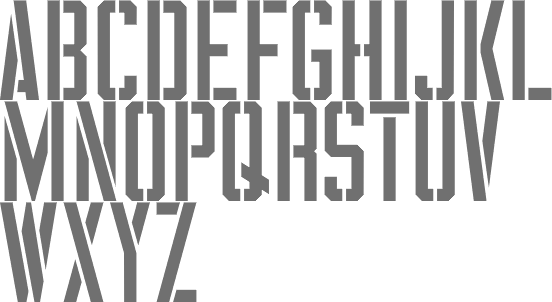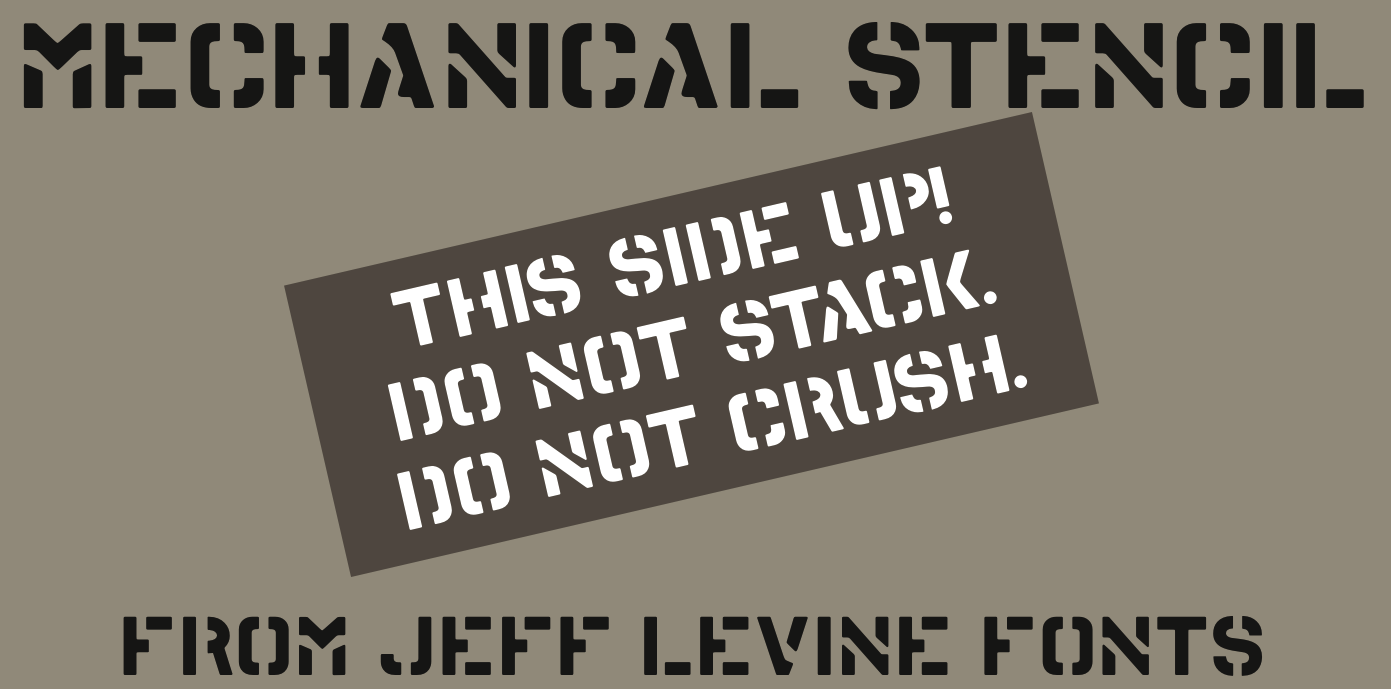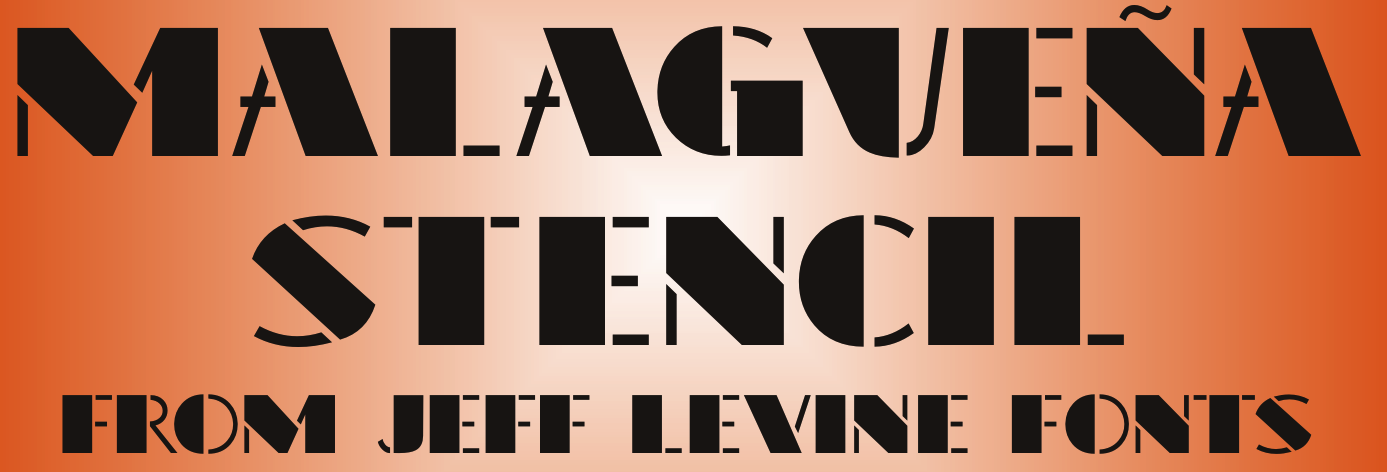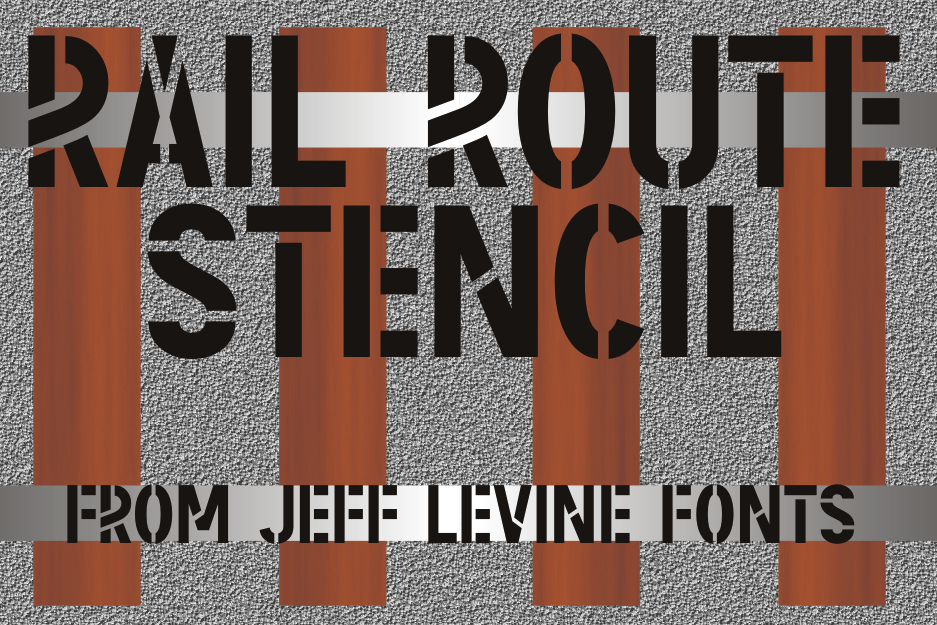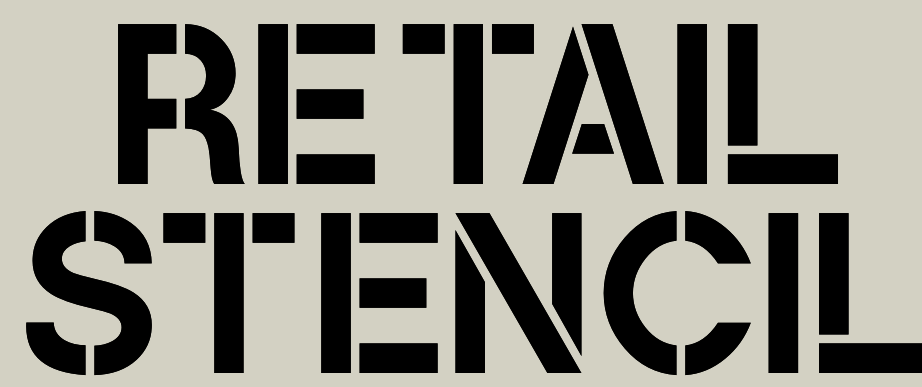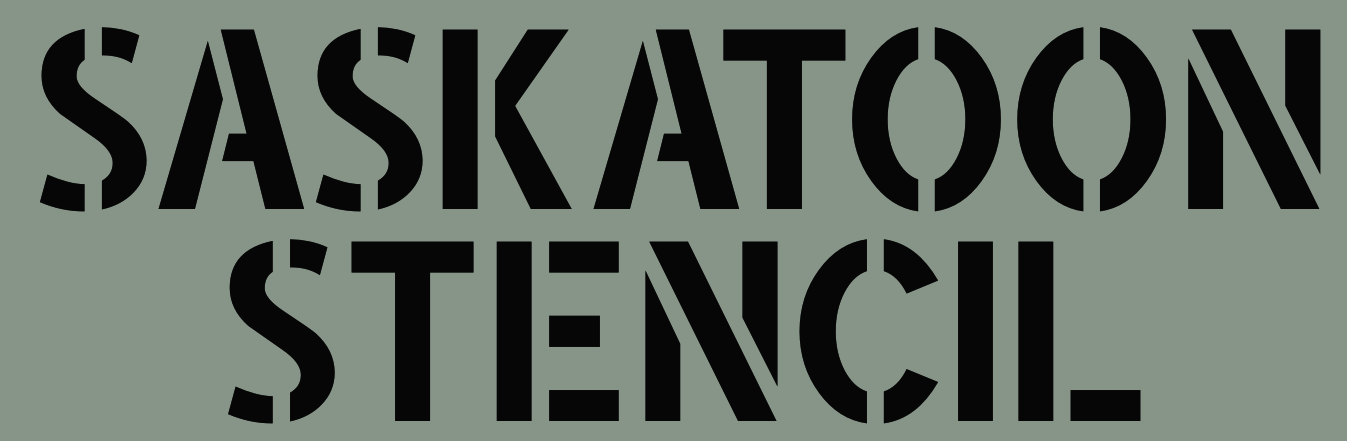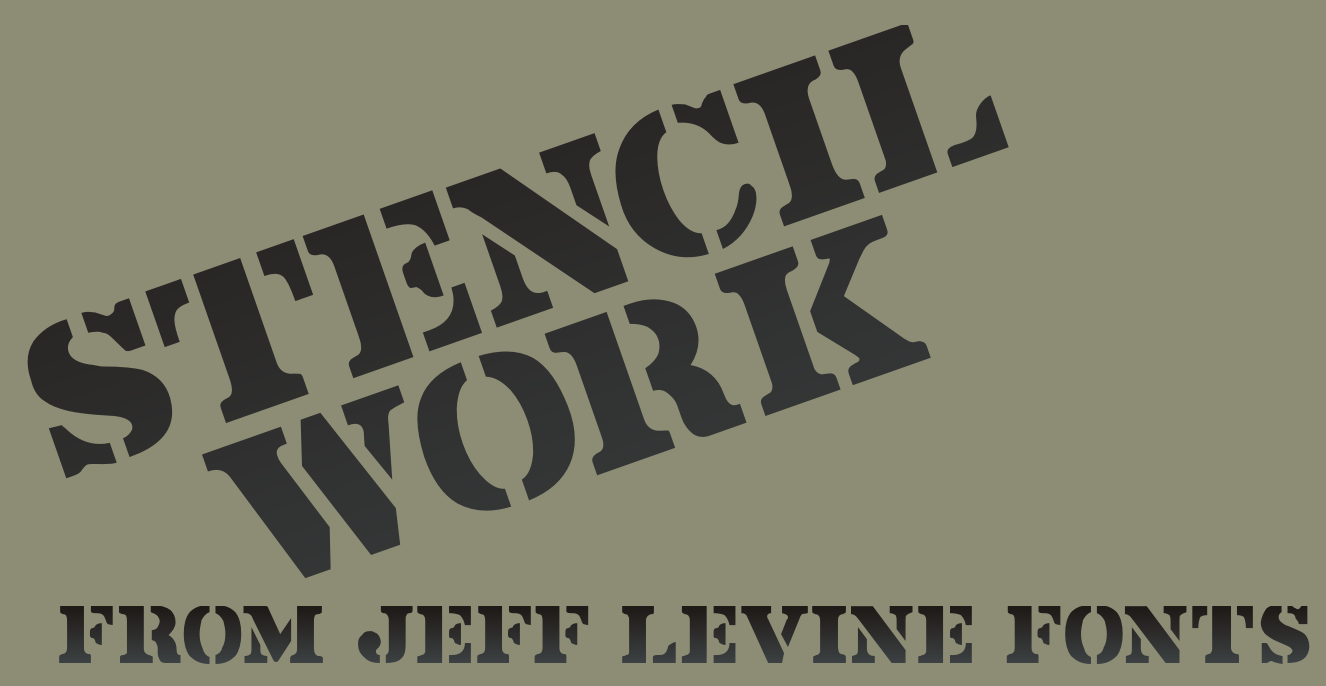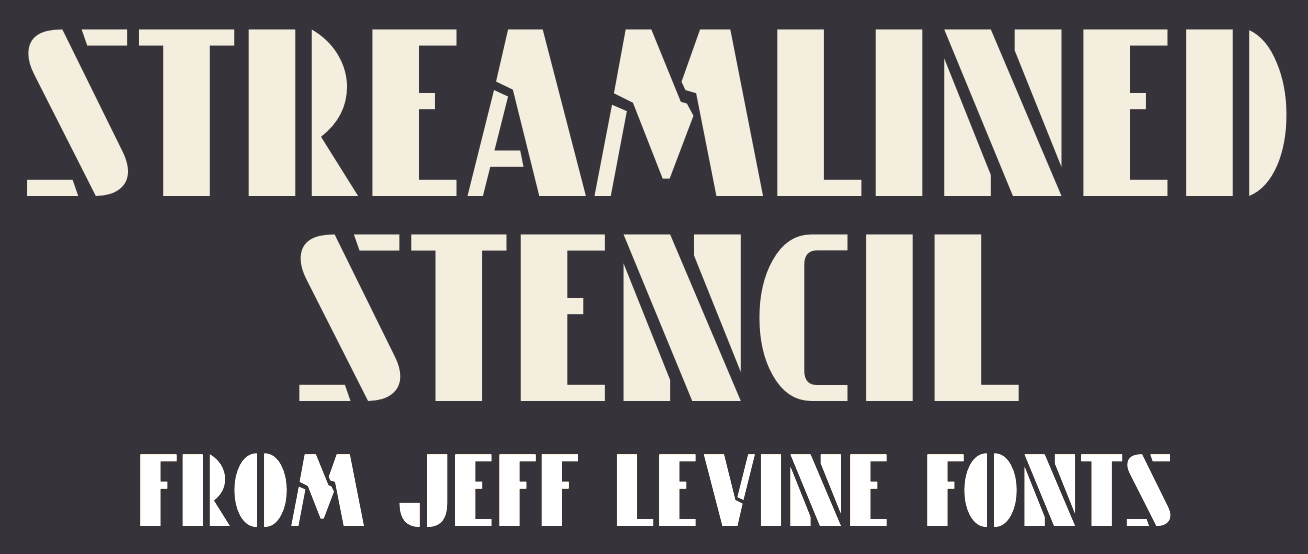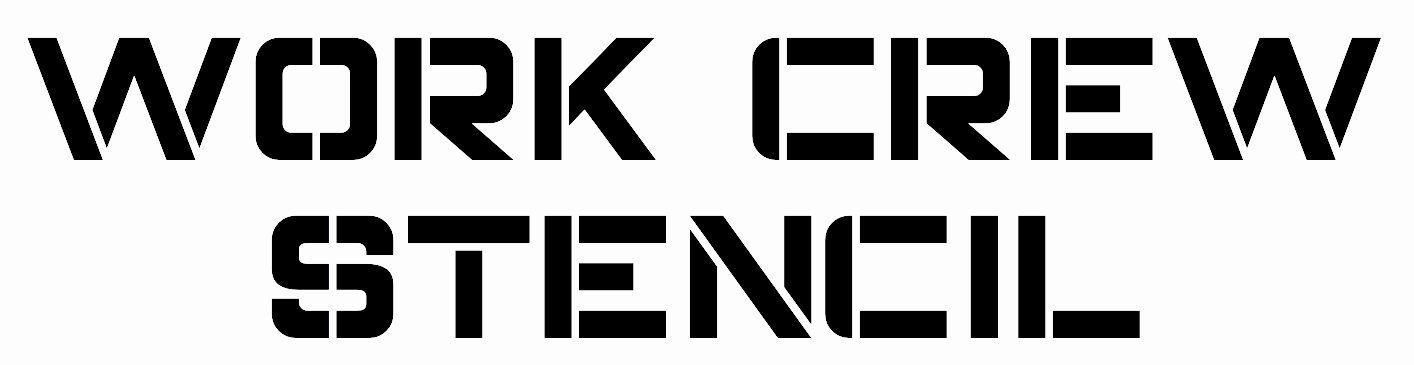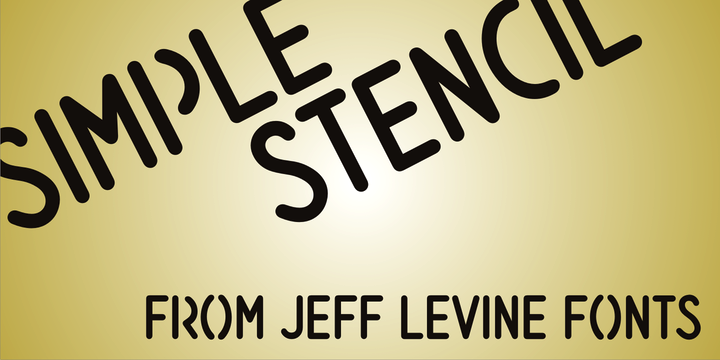
Jeff Levine: Stencil Faces
Jeff Levine may well be the most prolific stencil font designer alive today. His passion for this nook of type design is clear from his writings. The stencil faces made by Jeff Levine include Adverse Stencil JNL, Amateur Stencil JNL (2010), Book Report (2006), Antique Stencils JNL (2013), Boot Camp JNL (2012, army stencil based on a set of vintage brass interlocking stencils made by the Stafford Manufacturing Company), Brass Stencil (2011, an army stencil face), British Stencil JNL (2010), Cardboard Cutouts JNL (2007), Carton Stencil JNL (2013), Case Closed (2011), Casual Stencil JNL (2013), Censorship JNL (2011), Class Project (2006), Claim Check JNL (2009), Cold Case JNL, Condensed Stencil JNL (2011), Confirmation JNL (2008), Corporal JNL (2009), Craft Project (2006, stencil design dingbats), Cut Paper Stencil JNL (2011), Delivered JNL (2005), De Vinne Stencil JNL (2010), Duffle Bag JNL (2008: military stencil), Educator JNL (2010), Evidence JNL (2009), Excess Baggage JNL (2009), Federal Case JNL (2008), Flatsider JNL (2012, a blocky stencil), Folk Singer JNL, French Stencil JNL (2010), In Shipment JNL (army stencil), Interboro JNL (2010), Investigator JNL (2010), Jailbreak JNL (2010, a stencil version of his wood face Hoosegow), Kashigata Stencils JNL (2012: based on round Japanese stencils), Lettering Guide JNL (2007), Mess Hall JNL (2007), Metal Stencil JNL (2011, white on black), Mondawmin JNL (2010), More Antique Stencils JNL (2013: dingbats), Mystery Stencil JNL (2010), Narrow Stencil JNL (2011), No Parking JNL (2011), Nottingham Stencil JNL (2011), Oil Barrel JNL (2011), Old Chisholm JNL (2012, an old brass ornamental stencil), Packed JNL (2005), Pendleton JNL (2011, an octagonal stencil face created from some scant images found on military machinery housed at the Marine Corps Mechanized Museum at Camp Pendleton, CA), Print Shop Stencil JNL (2013), Railyard Stencil JNL (2009), Paper Stencil JNL (2010), Ramshackle JNL (2010), Record Promotion JNL (2011), Ritz Stencil JNL (2011, art deco style), Rubbish JNL (2007, grunge stencil), (2013), Schoolmarm (2006), Science Fair (2006, a filled stencil font), Sealed JNL (2005, blackletter stencil), Shipped JNL (2005), Signage JNL (2013, Futura Stencil style typeface), Sign Stencil JNL (2013), Sloppy Stencil (2010, grunge stencil similar to Packed JNL), Steel Stencil JNL (2012), StencilBoard JNL (2010), Stencil Deco (2008, a modification of Cardboard Cutouts JNL), Stencil Designs JNL (2012, vintage dingbats), Stencil Extras (2013), Stencil Gothic, Stencil Machine JNL (2013), Stencil Mark JNL (2011, based on a stencil by Meyer and Wenthe from Chicago), Stencil Modernistic JNL (art deco), Stencilbats JNL (2005), Stencil Monograms JNL (2011), Stencil Press JNL (2011, based on just a few existing sample punches from a 1920s stencil machine made by the Diagraph-Bradley company), Stencilvania JNL (2006), Stenson (2006, a stencil seen in rubber stamp shops), Storage (2006), Strong Stencil JNL (2013), Study Hall (2006), Table Fortu JNL (2008, a stunning art deco stencil), Teacher JNL (2009), Templit JNL, Term Paper (2006), Tin Lizzie JNL (2013, stencil-style automobile logos), Tote Bag JNL (2006), Tramp Steamer JNL (2007), Trencher JNL (2011, based on hand-cut stencils spray-painted onto a vintage 1947 Cleveland Trencher acquired by the Marine Corps Mechanized Museum at Camp Pendleton, CA), Trocadero JNL (2009, inspired by an early 1950s photo showing the signage for the Trocadero Restaurant located on Liberty Avenue and 23rd Street in Miami Beach), Trooper JNL (2009), Ultra Thin Stencil JNL (2012), Van Alt (2006, described as a geostencil, Futura Blacular kind of setup but from way before that style got Rennerized), Western Adventure (2006, classic stencil from the 1950s), Xmas Stencils JNL (2007, stencil dingbats). |